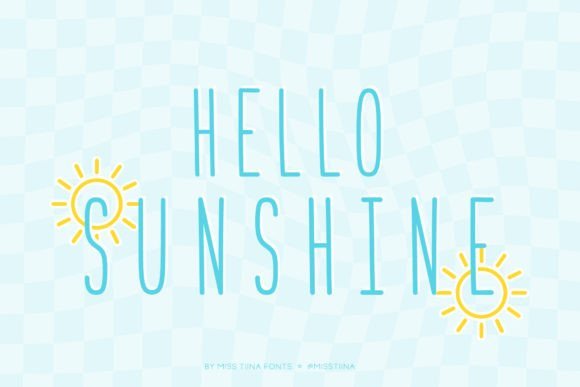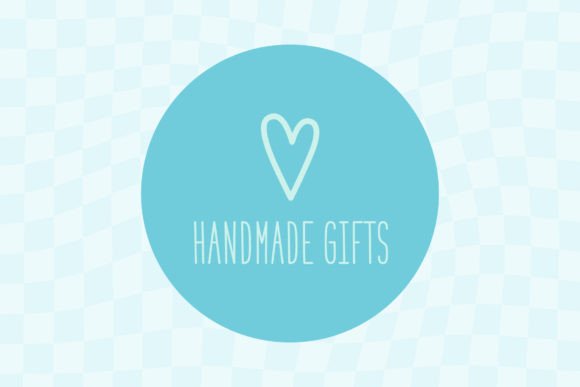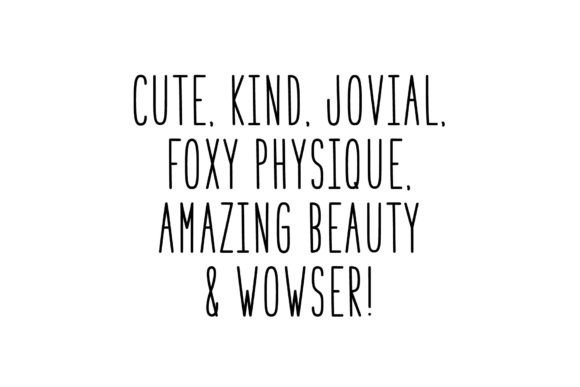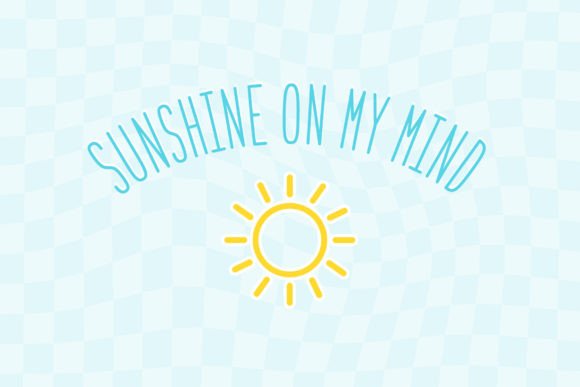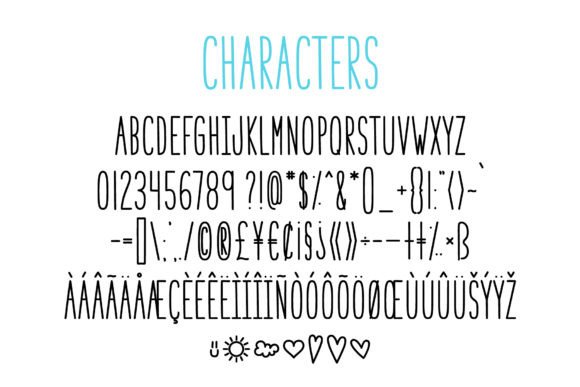
Meet Your New Favorite Font: Hello Sunshine Font
Have you ever been brainstorming a new project and suddenly, inspiration strikes? The ideas start flowing, and you can’t wait to get creative. That’s exactly what happened when we discovered the Hello Sunshine Font. This adorable handwritten display font is the perfect addition to any modern project, from greeting cards to social media graphics.
With its playful and whimsical style, the Hello Sunshine Font is designed to bring a touch of warmth and personality to your designs. And the best part? It’s not just a font – it also comes with 7 adorable doodles to help you add an extra layer of fun to your projects. Whether you’re a seasoned designer or just starting out, this font is sure to become a valuable addition to your toolkit.
Hello Sunshine Font Key Features
- Font Family: Hello Sunshine Font is a sans-serif font family designed for digital use.
- Size Range: Available in 4 weights: Light, Regular, Medium, and Bold, each with 6 styles (Normal, Italic, Bold, Bold Italic, Condensed, and Condensed Italic).
- Resolution: Designed for high-resolution displays, including Retina and 4K screens.
- Unique Characteristics: Features a modern and friendly design, with a unique blend of geometric and organic shapes, making it suitable for a wide range of applications, from branding and advertising to digital products and user interfaces.
- Language Support: Supports a wide range of languages, including Latin, Cyrillic, and Greek alphabets, as well as various diacritics and symbols.
Hello Sunshine Font Review
Hello Sunshine Font is a beautiful, modern sans-serif font that can elevate any design project. I love its ✨ clean lines, ✨ friendly feel, and ✨ versatility in various contexts. Whether it’s for a logo, headline, or body text, this font is a great choice. The font’s x-height is well-balanced, making it easy to read, and the weight range is suitable for a wide range of applications.
However, I do have some concerns. The font’s ✠️ lack of italic and bold variations can limit its usage in certain situations. Additionally, the font may not be suitable for use in very small sizes, as the characters can become ✠️ fuzzy and difficult to read.
Overall, I think Hello Sunshine Font is a great addition to any designer’s toolkit. Its modern look and feel make it a great choice for contemporary designs, and its versatility makes it a solid choice for a wide range of projects. While it may have some limitations, I believe the benefits of using this font far outweigh the drawbacks.
- ✨ Clean lines and friendly feel
- ✨ Versatile in various contexts
- ✨ Well-balanced x-height
- ✠️ Limited italic and bold variations
- ✠️ May not be suitable for very small sizes
Practical Application Guide for Hello Sunshine Font
Tips for Getting the Most Out of Hello Sunshine Font
Use Hello Sunshine font for titles and headings to add a touch of elegance and sophistication to your designs.
Pair it with bold colors and playful graphics to create a fun and vibrant atmosphere.
Experiment with different font sizes and styles to create visual interest and depth.
Hello Sunshine font is perfect for:
Party and event invitations
Food and beverage branding
The Alex Brush Font is a beautiful and elegant script font that’s perfect for luxury brands, invitations, and wedding designs. It’s ideal for designers who want to create a high-end and sophisticated look. It compares to Hello Sunshine Font by offering a similar level of elegance and sophistication, but with a more classic and timeless feel.
The Dancing Script Font is a lively and energetic script font that’s perfect for headings, titles, and quotes. It’s ideal for designers looking for a fun and playful feel. It compares to Hello Sunshine Font by offering a similar level of energy and playfulness, but with a more dynamic and expressive look.
Q: Is the Hello Sunshine Font optimized for digital use?
Yes, the Hello Sunshine Font is optimized for digital use, with carefully crafted hinting and kerning to ensure crisp and clear rendering on a variety of devices and screen resolutions.